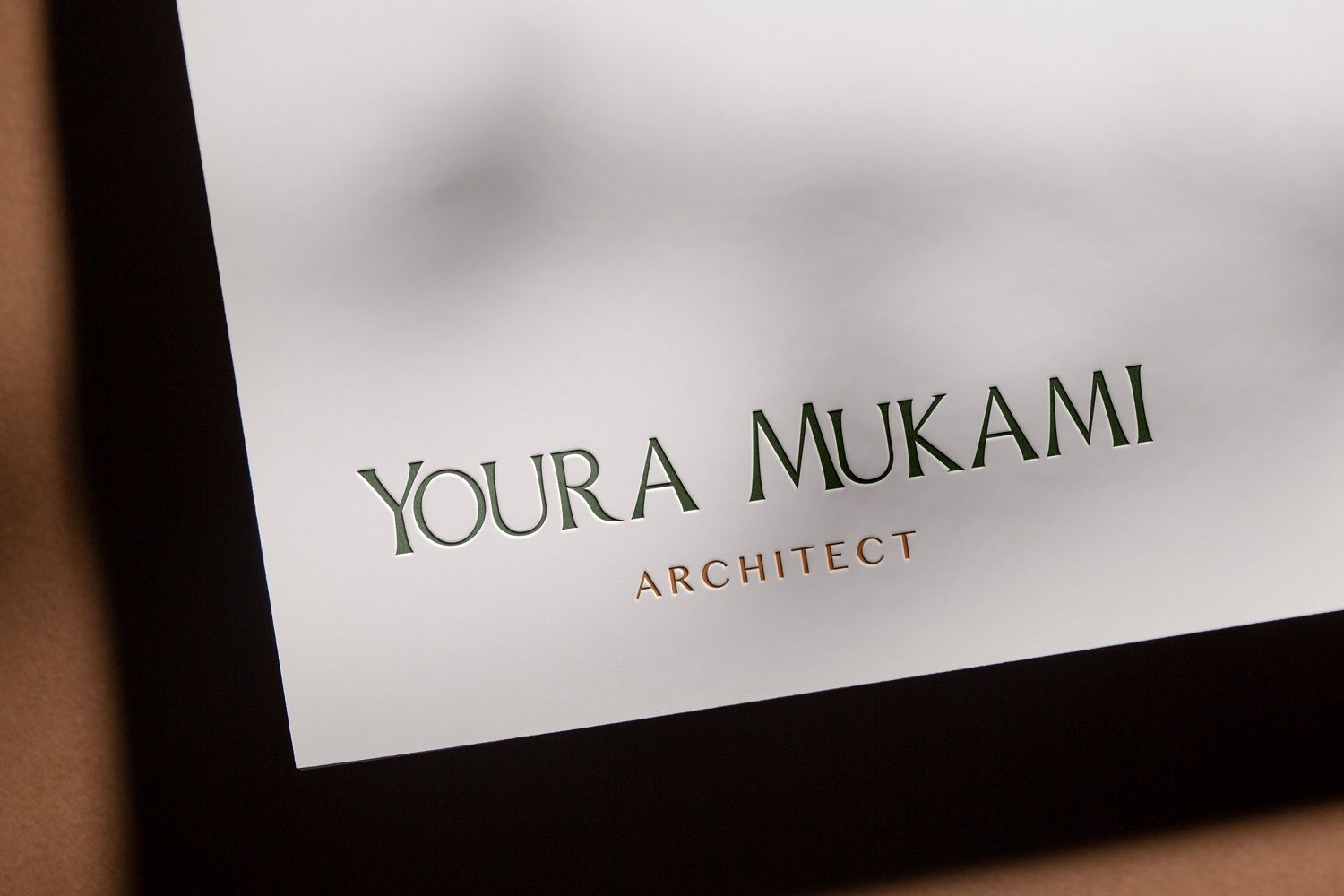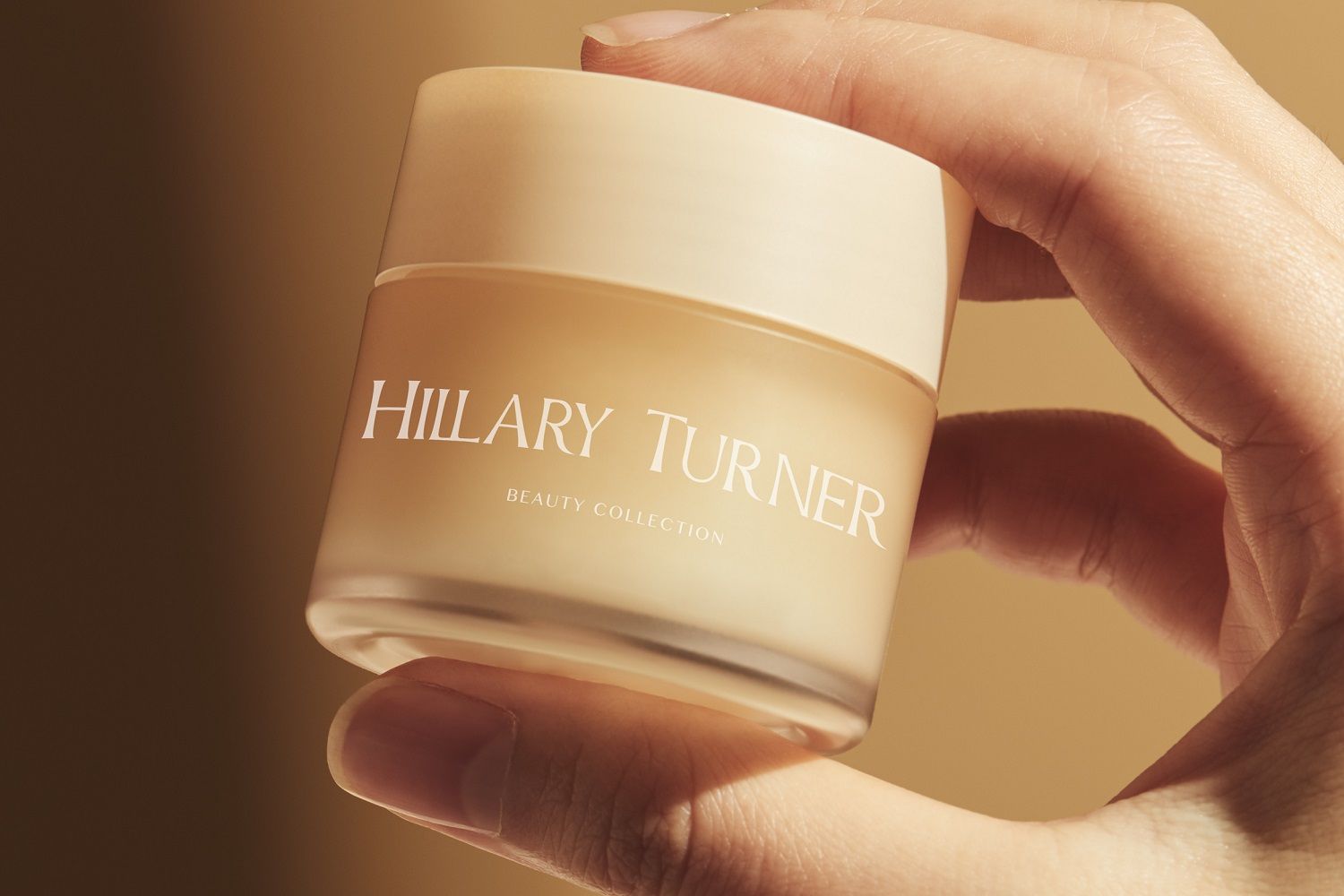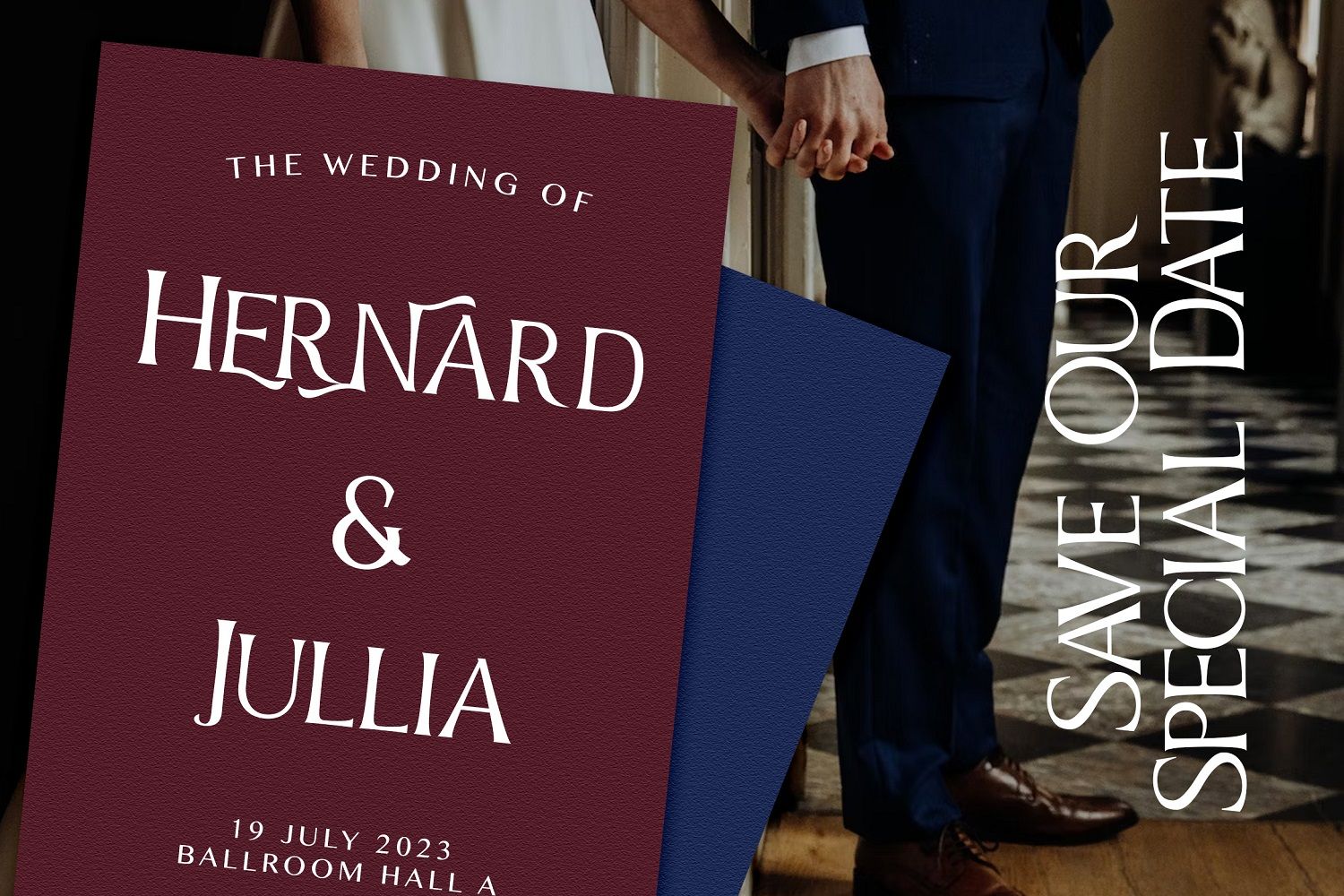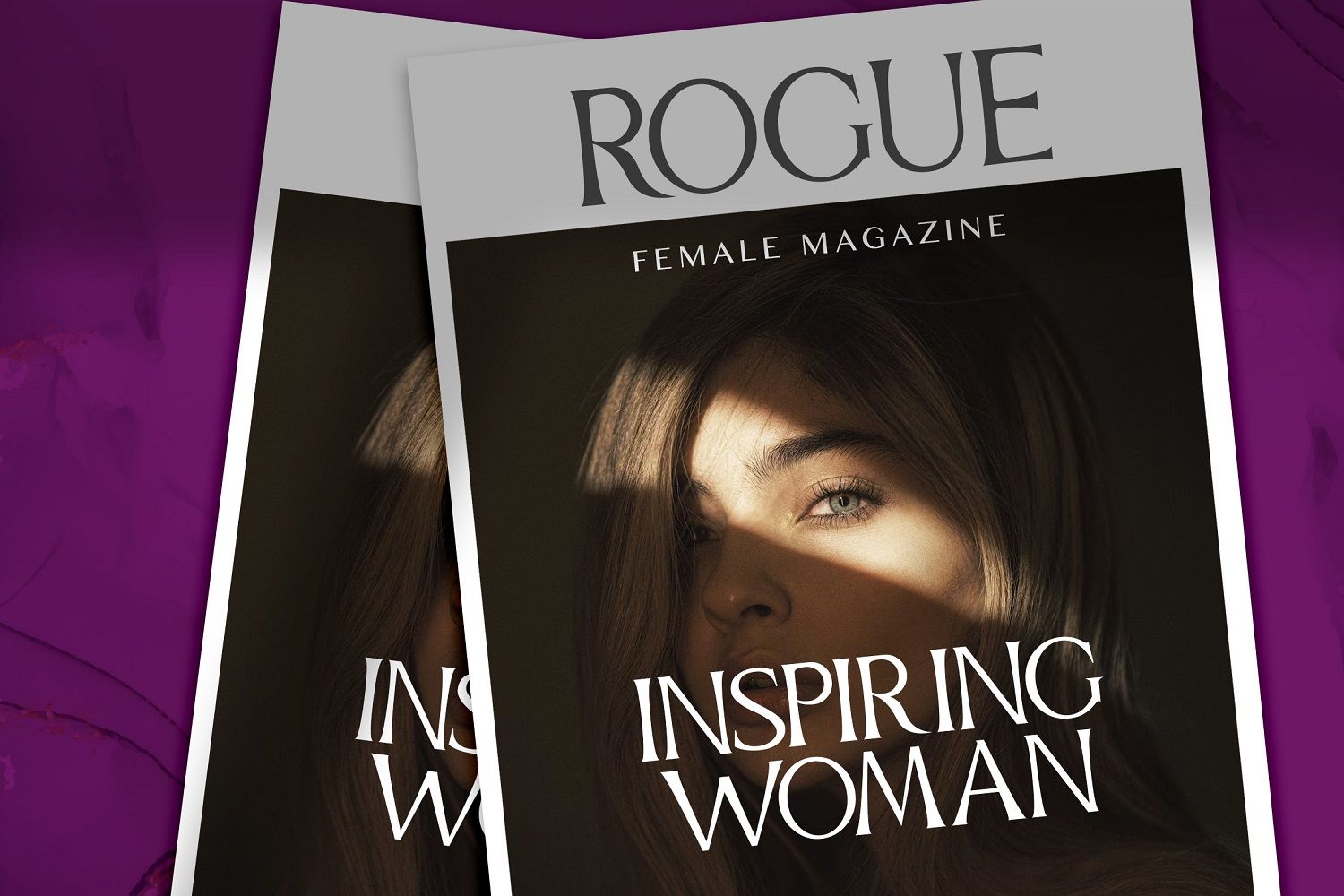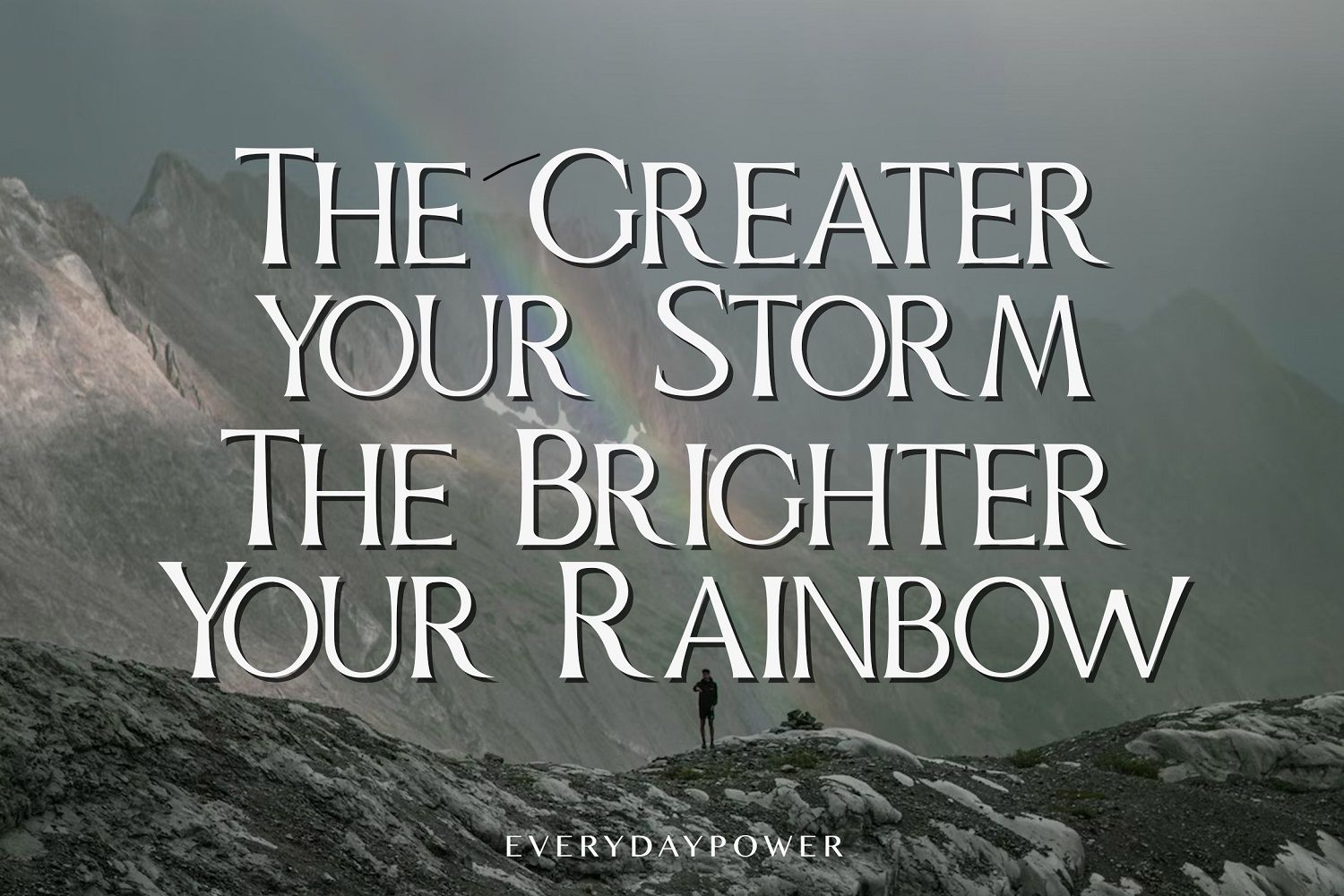
Free PURWATYPE Roman Serif Font is a refined serif with a dramatic, almost calligraphic posture. Tall proportions, high contrast strokes, and the subtle flare on its terminals give each letter a poised, elegant rhythm. The included alternates and ligatures add extra sweep and curvature, so titles can feel either stately and classic or more expressive and contemporary. Thanks to its clear shapes and generous spacing, Free PURWATYPE Roman Serif Font reads well in short paragraphs while still looking like display typography.
This font feels at home in luxury branding, perfume and cosmetics packaging, high-end fashion logos, and editorial covers where you want a sophisticated, cinematic mood. Use Free PURWATYPE Roman Serif Font for wedding stationery, boutique hotel identities, social media quotes, or hero headlines on portfolios that need a polished, artistic voice. Pair it with a minimal sans serif for body text and Free PURWATYPE Roman Serif Font becomes the graceful focal point of your entire design system.